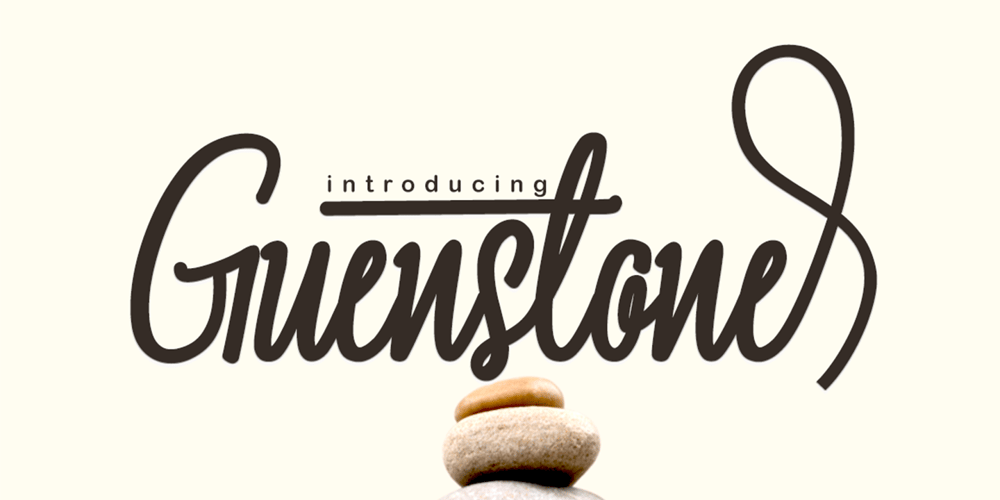
Guenstone Font Family was designed by Muhammad Zaini and published by Cocodesign. Guenstone contains 1 styles and family package options. Hello all.!!Guenstone Modern Calligraphy. This font was designed by handwriting, and it has a modern and unique forms of calligraphy, the writing style is very natural.The Features of this fonts is; * Standart ligatures * Stylistic Alternates * Contextual Alternates * Stylistic sets Programs that support in this font is a Photo Shop, Adobe Illustrator, Adobe Indesign, Corel Draw and Microsoft Office. Can be used for various purposes.such as headings, logos, wedding invitation, t-shirt, letterhead, signage, lable, news, posters, badges etc. To enable the OpenType Stylistic alternates, you need a program that supports OpenType features such as Adobe Illustrator CS, Adobe Indesign & CorelDraw X6-X7.Thank you